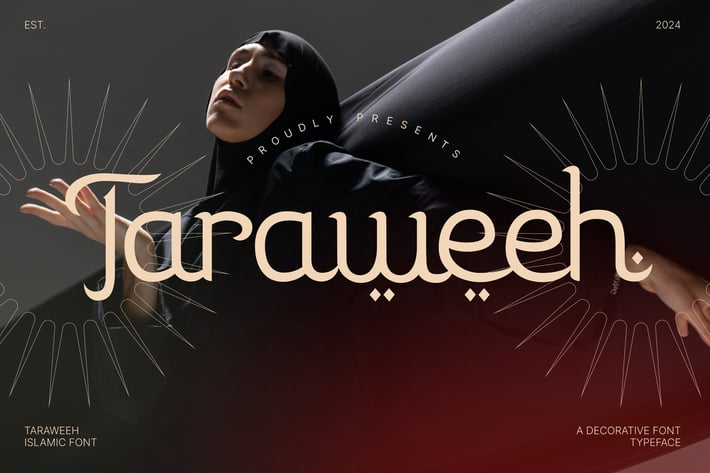
Taraweeh Arabic Font
Taraweeh Arabic Font Tarawih exudes elegance and a decorative flair, with a touch of Islamic-inspired design. It has a modern and versatile vibe, suitable for a range of applications. This font would work well in designs related to fashion, beauty, cultural events, or any project needing a sophisticated and slightly exotic touch.
The font features rounded letterforms with unique decorative elements, giving it a distinctive and memorable appearance. It appears to be a sans-serif font.
Main Features
Uppercase & Lowercase characters
* Numeral & Punctuations
Taraweeh Arabic Suitable for highly suitable for logos, branding, social media graphics, invitations, editorial design, packaging, web design, and fashion and beauty projects, as well as cultural event materials, art projects, titles, advertising, posters, stationery, signage, book covers, apparel, film titles, web banners, and presentations.